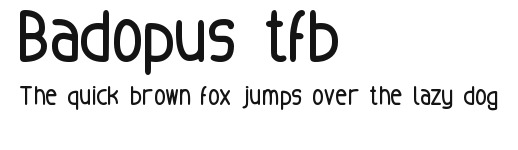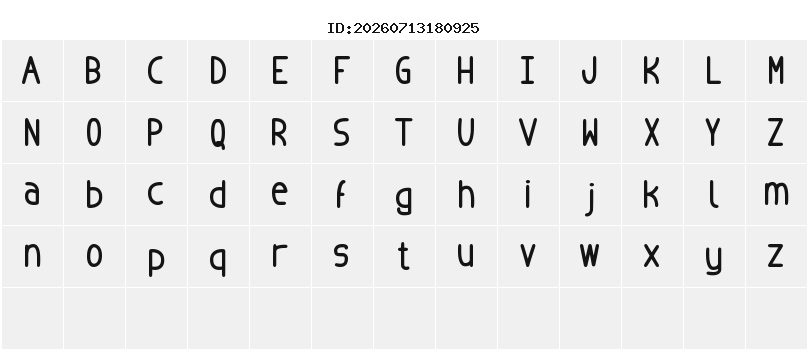
• Font Name: Badopus tfb
• Full Font Name: Badopus tfb
• Version: Version 1.00 January 6, 2013, initial release
• Designer: kaiser zhar khan
About Badopus tfb.ttf
Badopus tfb.ttf is a modern, elegant sans-serif font designed for ultimate readability and visual harmony. Perfect for branding, headlines, web design, and print materials.